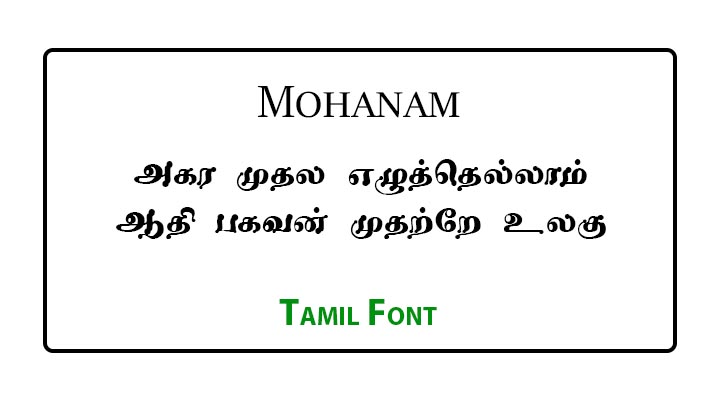
Mohanam Tamil Font Free Download. Mohanam is one of the Tamil Stylish Font. Specially used in publications. Here you can download Font and Keyboard Layout for Free. This font is widely used by Tamil Nadu and Sri Lankan Tamil Peoples. The following font was design and generated by by Fontograpgher 3.5.
Mohanam Tamil Font Preview